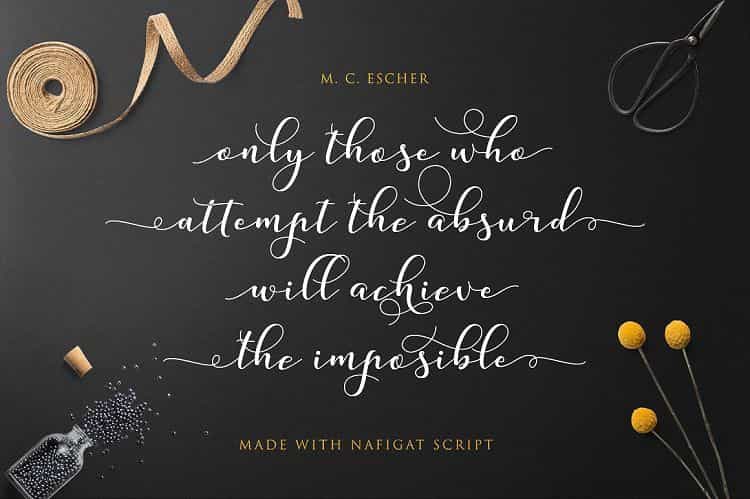
Discover Nafigat Script Font, part of the Calligraphy collection—a versatile and unique font perfect for adding a personal touch to your projects. Download it for free and enjoy crafting designs with style, from invitations to social media posts. This font is available exclusively for personal use, giving you the freedom to create without limits. Unlock your creativity with Nafigat Script Font today!
Hello world!! A new modern script calligraphy: What the hell is Font! Nafigat comes with Romantic and Modern Calligraphy, to make your design project Fresh and Fabulous. This font have a 264 Standard Glyph + 408 Glyph Alternate in Open Type Standard Format.